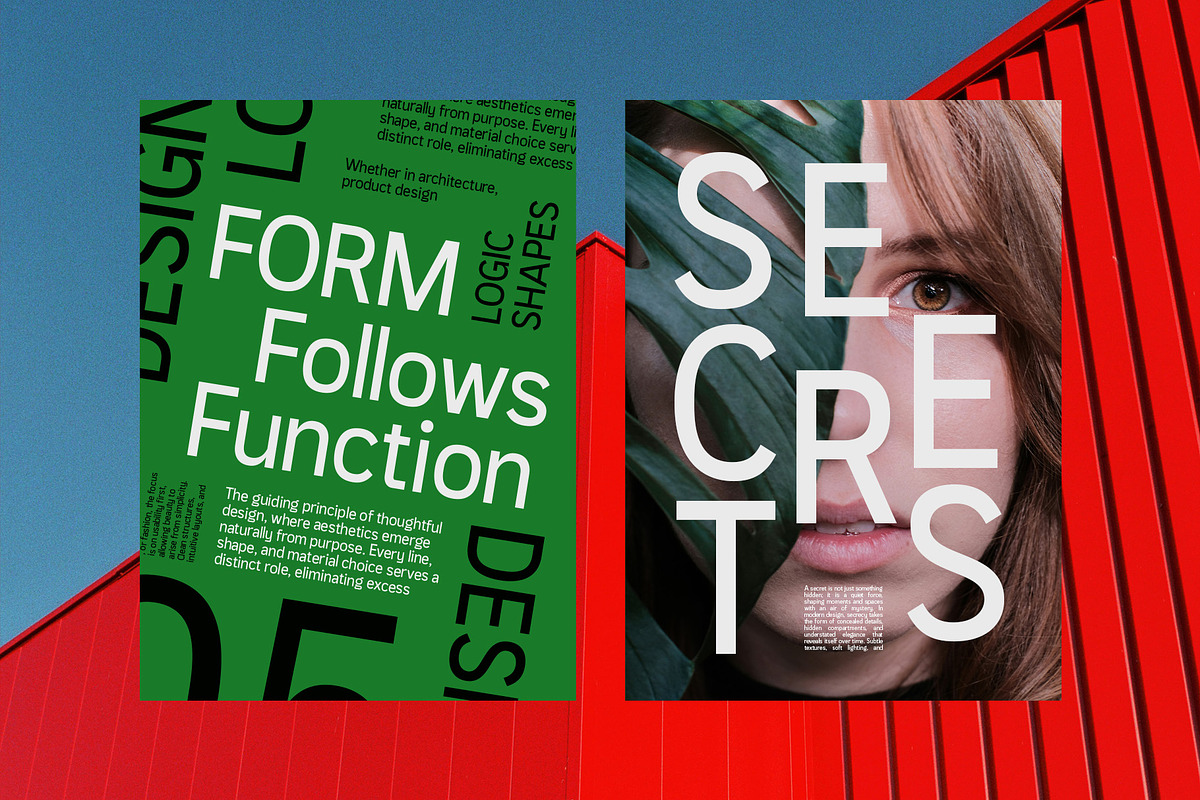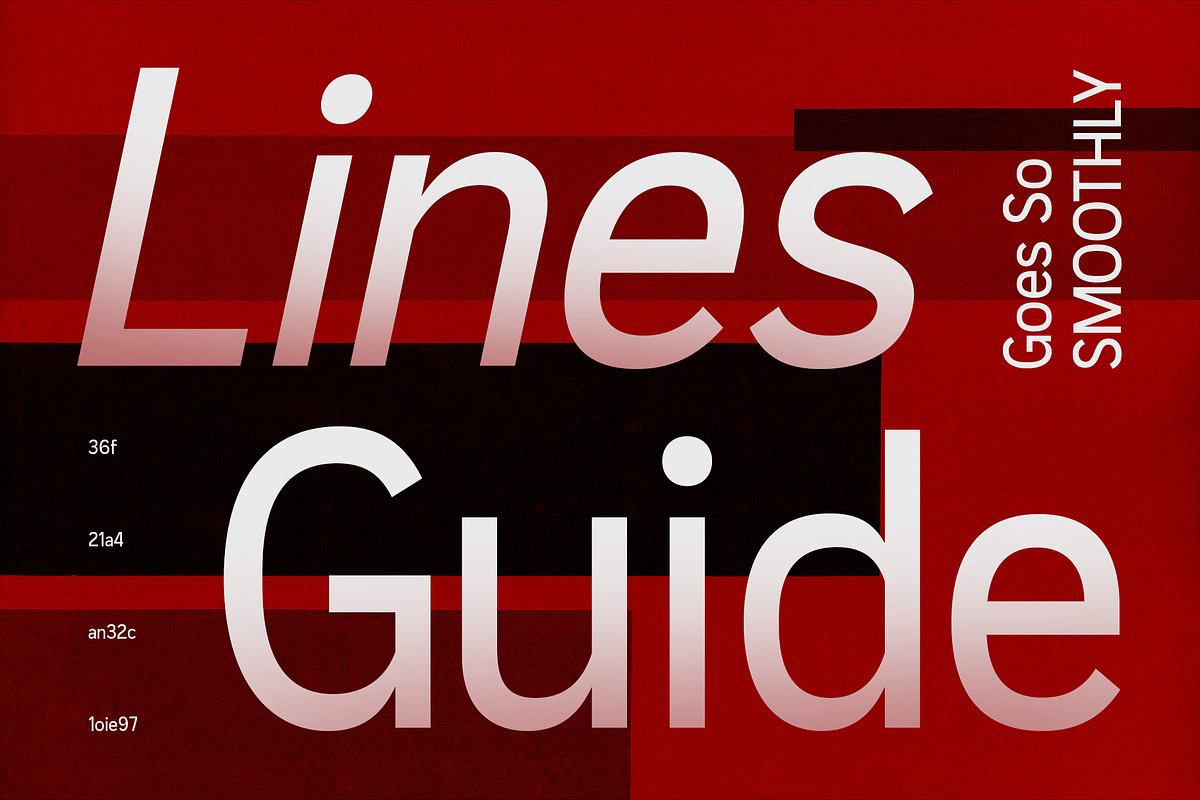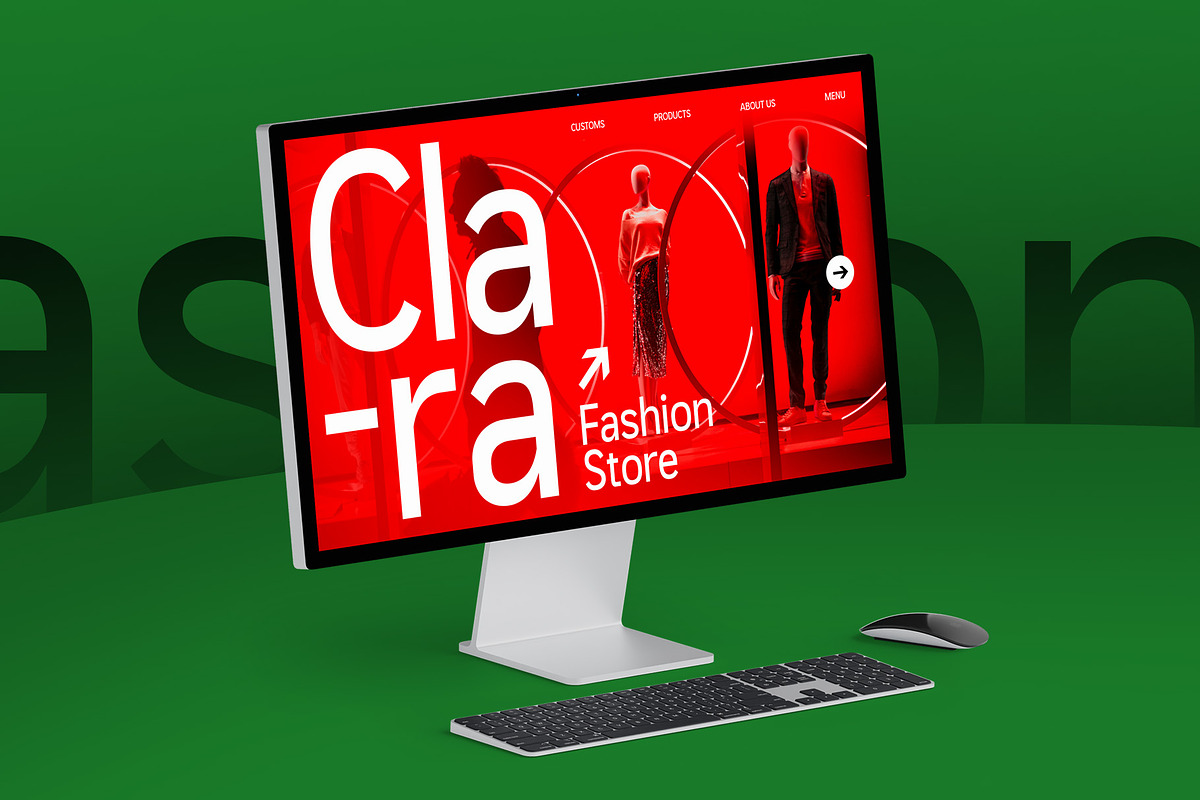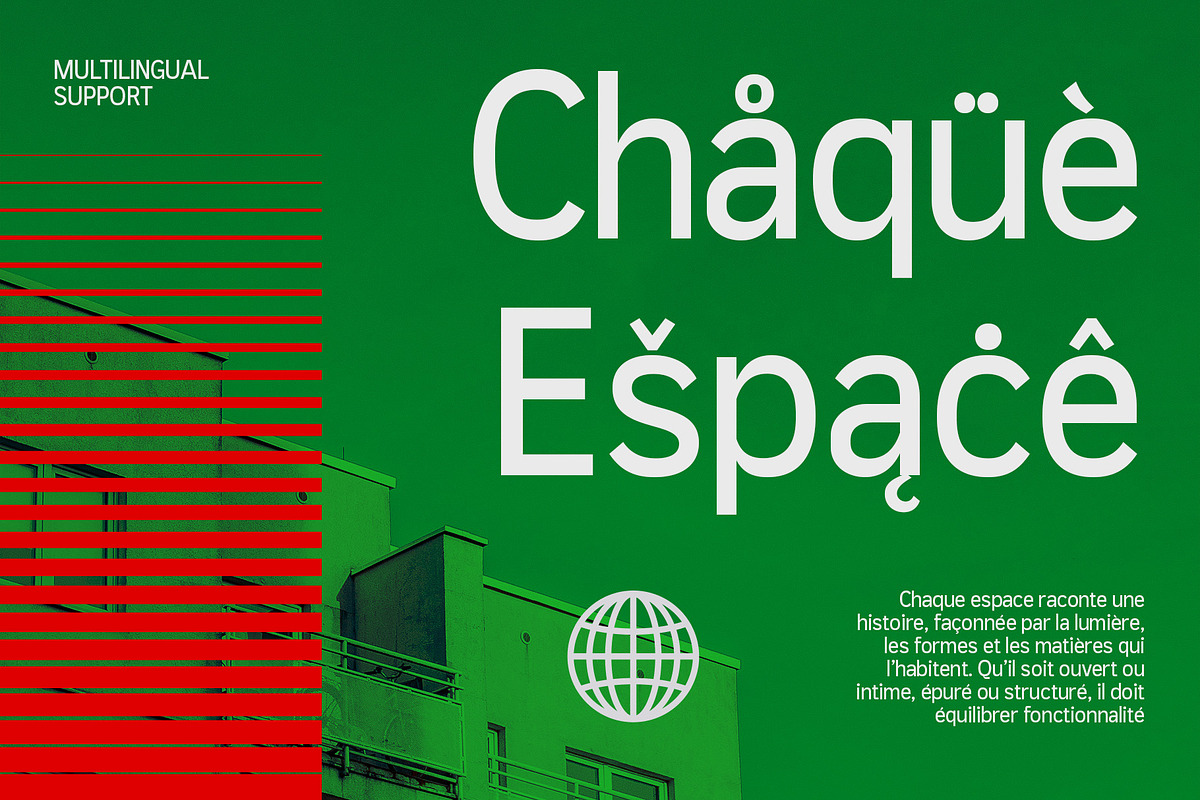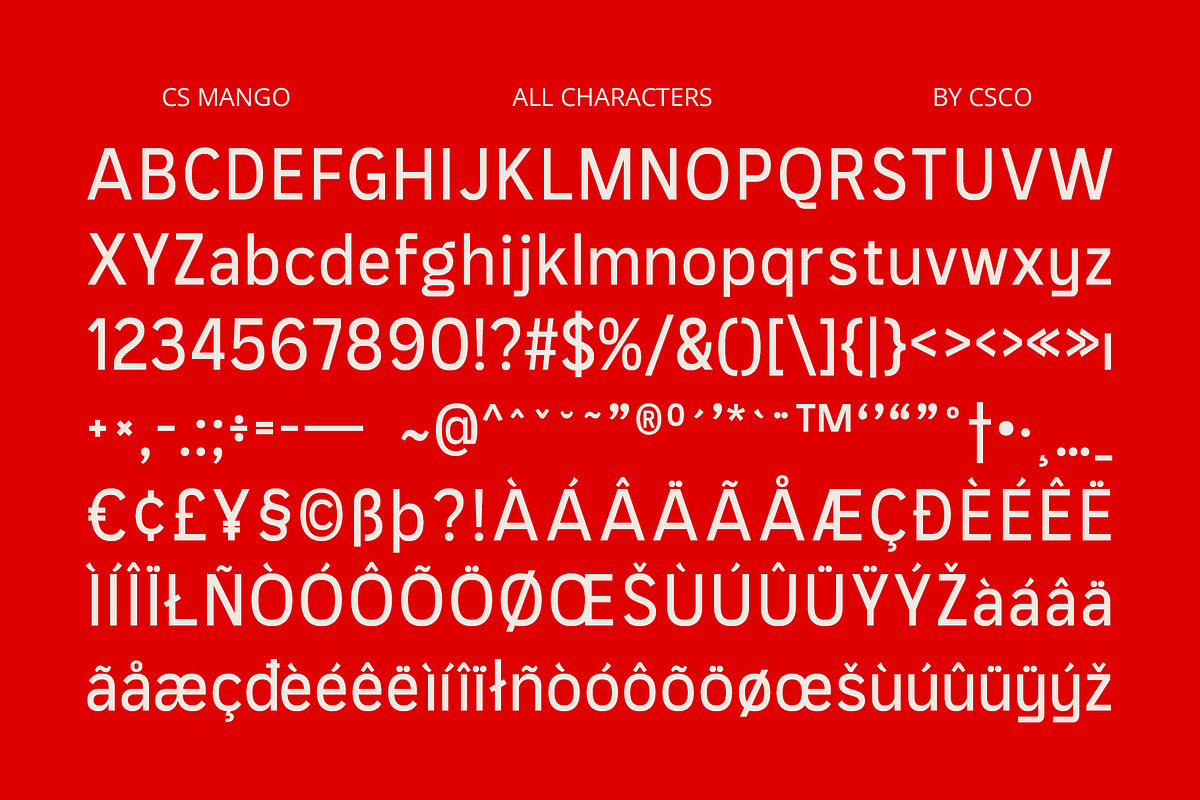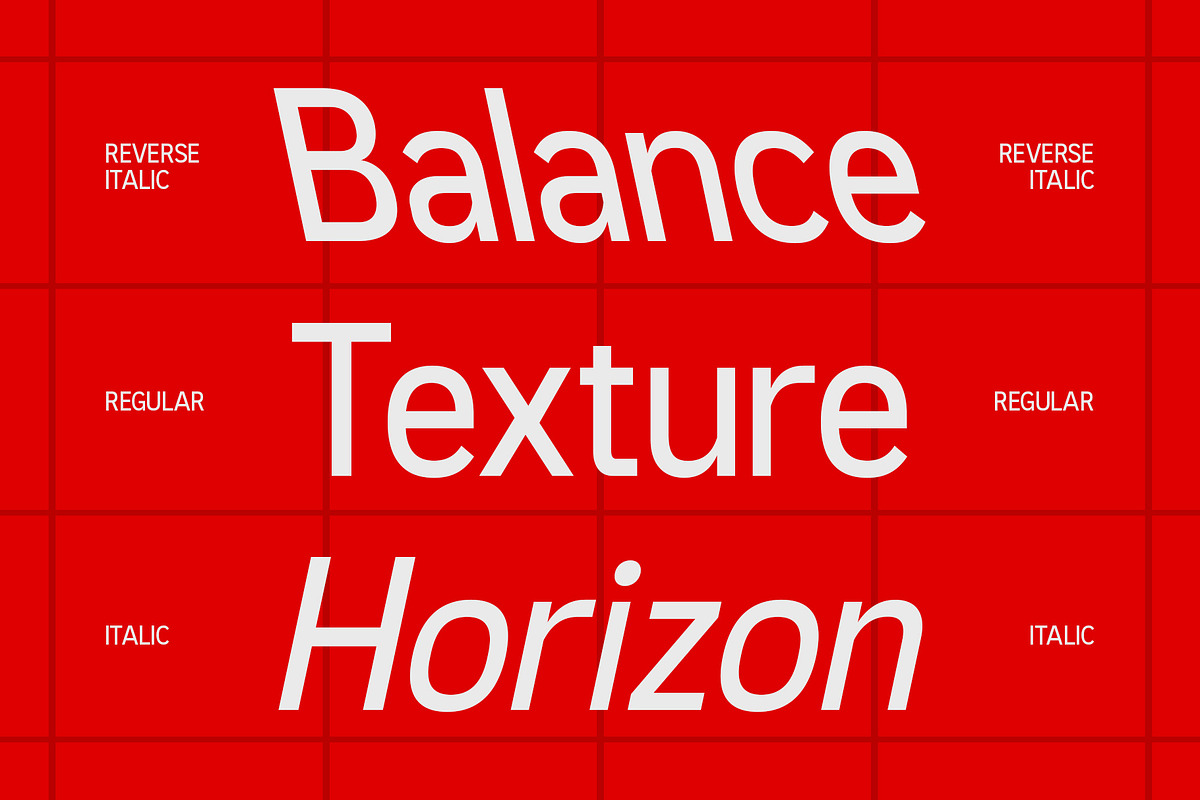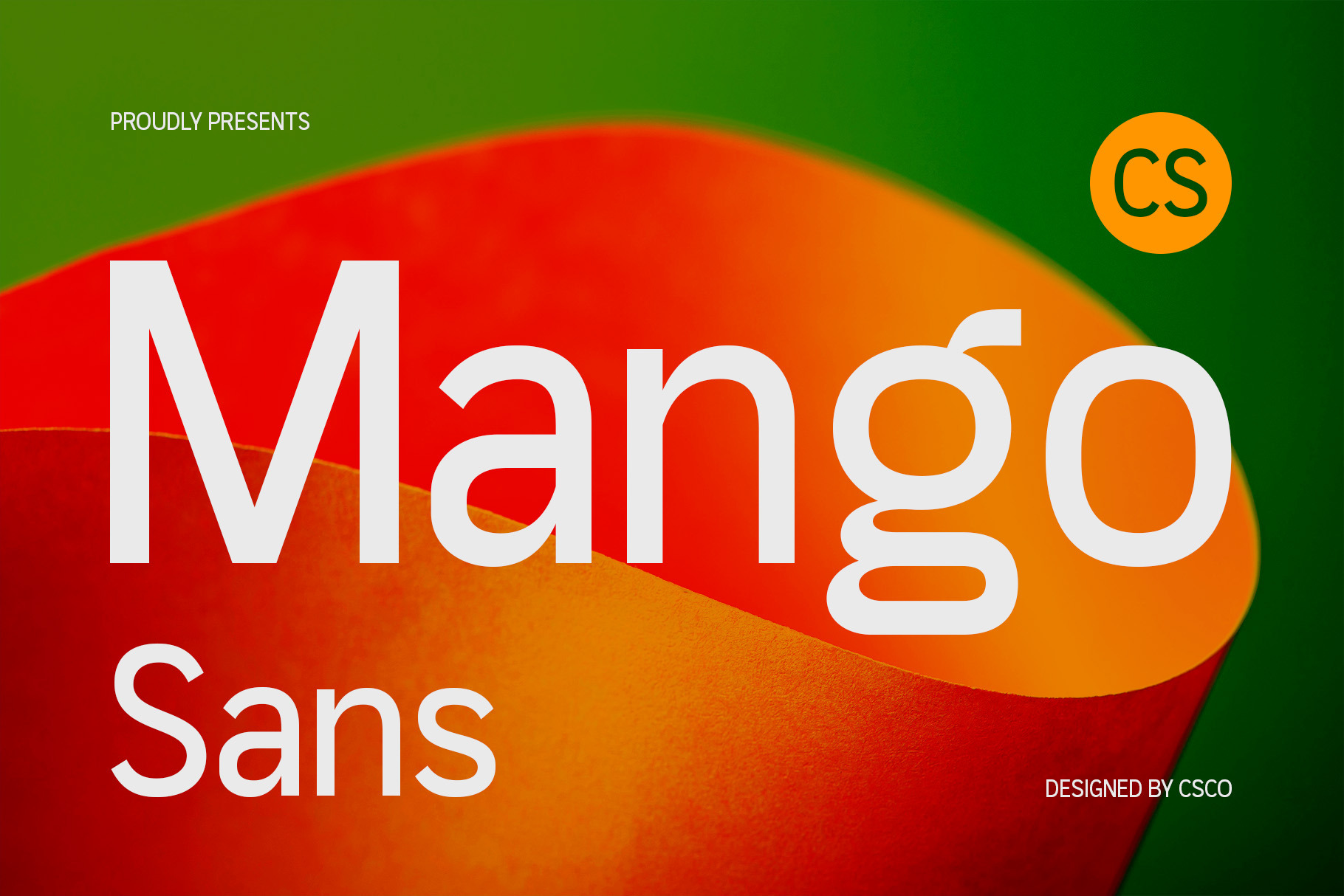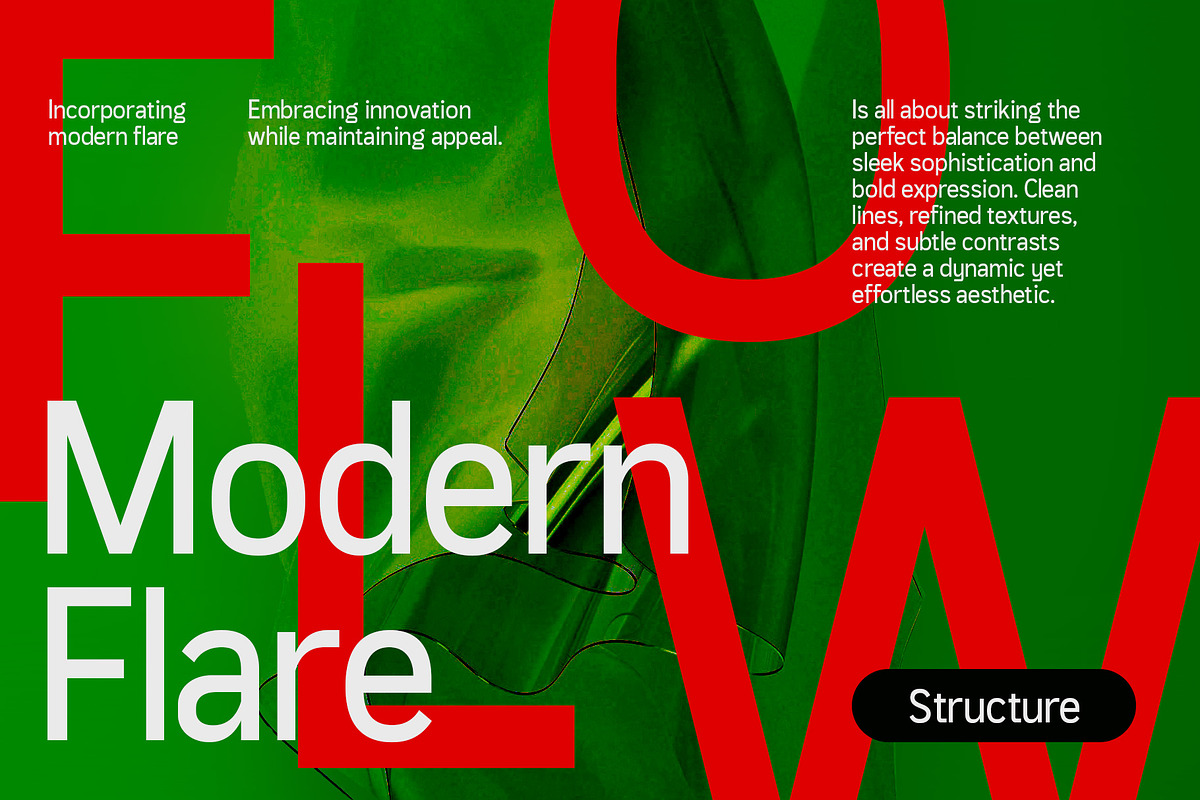
CS Mango – Grotesque Font
CS Mango – Grotesque Font: Bold Simplicity with a Modern Edge
Modern Sans-Serif with Grotesque & Geometric Shapes CS Mango is a contemporary sans-serif font that merges grotesque and geometric influences, offering a clean, bold, and highly adaptable character. Designed for both professional and creative applications, this typeface maintains a balance between modern simplicity and distinctive personality, making it a versatile choice for a variety of design projects.
Balanced Proportions & Smooth Edges Crafted with precision, CS Mango features well-proportioned letterforms and smooth edges, ensuring optimal legibility in both digital and print mediums. The minimal contrast between strokes enhances clarity, while its subtle geometric structure provides a modern yet timeless feel, ideal for user-friendly interfaces and professional layouts.
A Functional Yet Stylish Look CS Mango’s modern aesthetic makes it perfect for branding, UI/UX design, editorials, and business materials. Its combination of geometric precision and grotesque warmth creates a professional yet approachable feel, ideal for corporate identities, tech interfaces, and editorial layouts.
Versatile for Various Design Needs From sleek logos to modern websites and marketing materials, CS Mango adapts effortlessly to various design contexts. Its bold yet refined nature ensures that it remains impactful and legible across different applications, reinforcing a strong and contemporary brand presence.
- CS Mango Regular
- CS Mango Italic
- CS Mango Reverse Italic